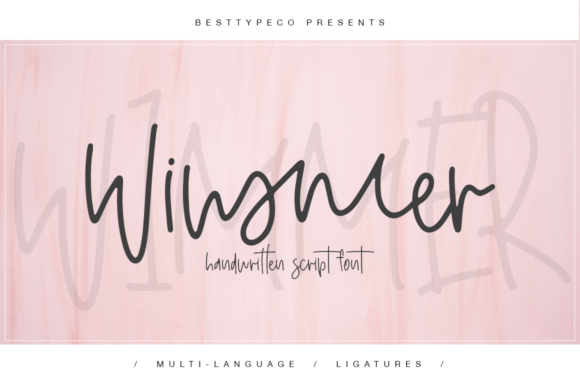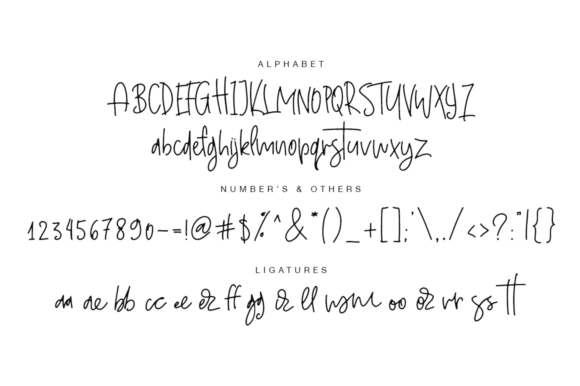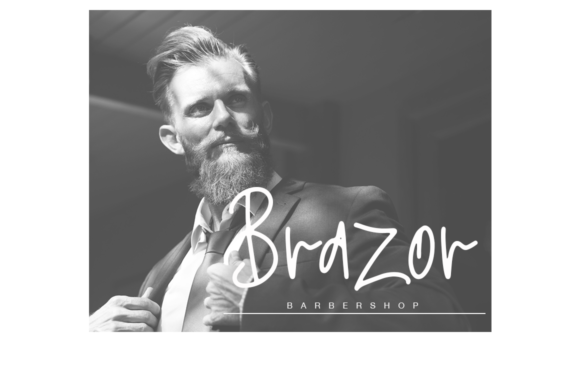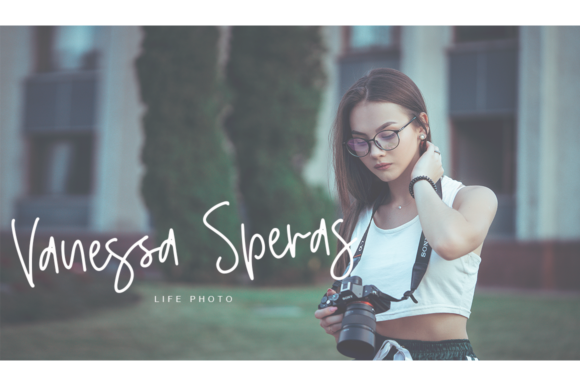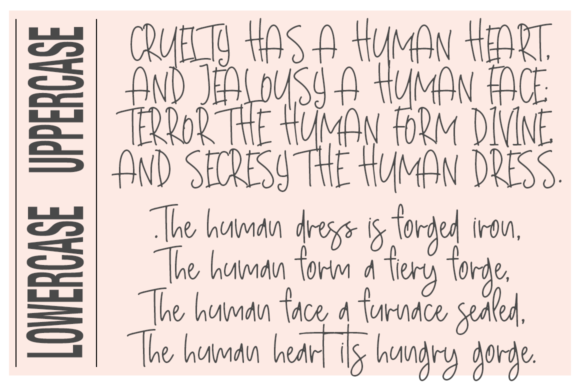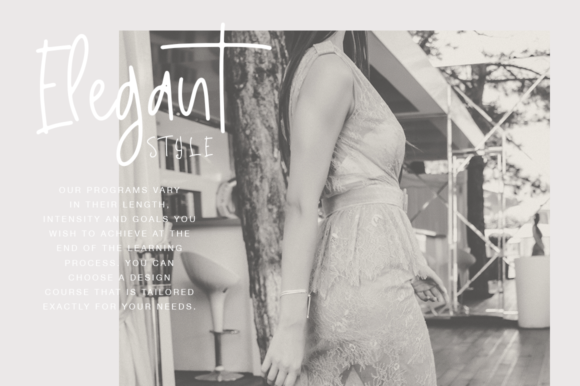
HomeScript FontsWimmer Font Script Fonts Wimmer Font FacebookXPinterestWhatsApp Wimmer Font Poster 2 Wimmer Font Poster 3 Wimmer Font Poster 4 Wimmer Font Poster 5 Wimmer Font Poster 6 About Wimmer Font The Wimmer is a handmade calligraphy font. It’s swirly letters will give your design a personal touch. DOWNLOAD NOW People also explored Beelagia Font Young Vigor Duo Font Baileywick Festive Wacana Font Children Font Ambyar Loro Font Ashitaba Font Queque Font Homerun Font 345 0 TagsWimmer Font Previous articleThe Bettalia Duo FontNext articleBeauty Lady Font LEAVE A REPLY Cancel reply Comment: Please enter your comment! Name:* Please enter your name here Email:* You have entered an incorrect email address! Please enter your email address here Website: Save my name, email, and website in this browser for the next time I comment. Personal Use Free Sweety Blue Personal Use Free Read more about this font Green Farmhouse Personal Use Free Read more about this font Super Caramel Font Personal Use Free Read more about this font Creativo Personal Use Free Read more about this font BLOG How to Cut Any Font on Cricut: Convert a Font to SVG (Free) Turn any font into a clean SVG so it cuts crisp on Cricut - a quick 3-step workflow using a free font-to-SVG tool. Top 7 Google Fonts Alternatives for Faster and Privacy-Friendly Web Design (2025) Transform Your Website: Elevate Your Typography with 7 Best Web Font Generators Best Fonts for YouTube Videos: Make Your Thumbnails Stand Out